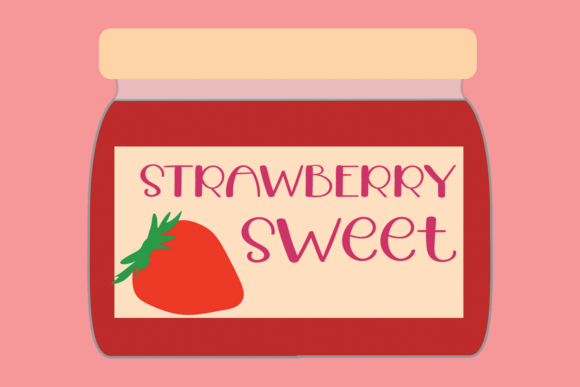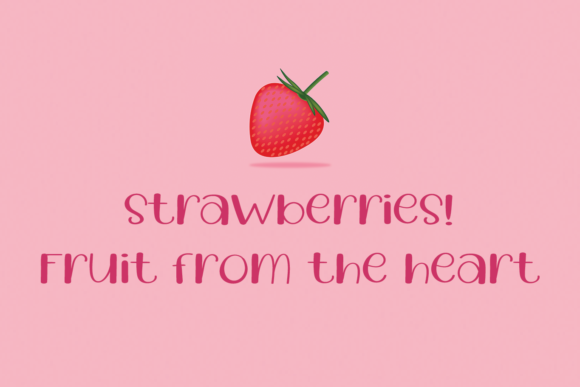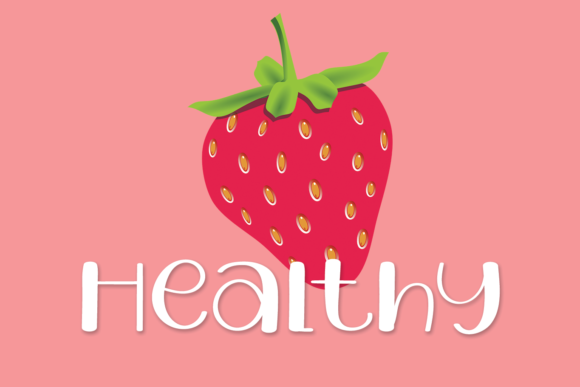
Strawberry Font
About Strawberry Font
Strawberry is a fashionable and fresh handwritten font. This unique font will effortlessly turn any design project into a stand out!